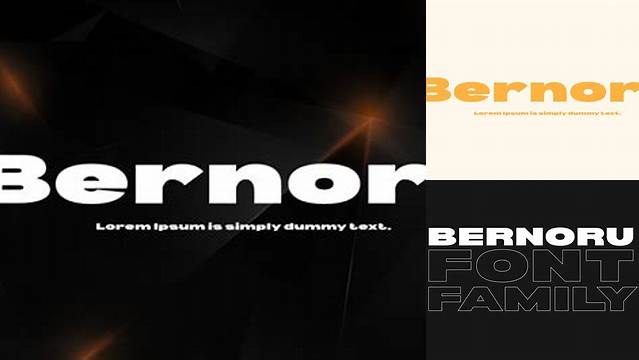
Hey guys! Are you on the hunt for a cool, modern font that'll make your designs pop? Well, look no further! You're in the right place. Today, we're diving headfirst into the awesomeness that is the Bernoru Semi Condensed Font, and the best part? You can snag a free download (TTF)! This font is a real gem, perfect for everything from sleek headlines to eye-catching body text. Get ready to elevate your design game – let's get started!
Bernoru Font: A Deep Dive into Its Features and Design
Alright, let's get down to the nitty-gritty. What exactly makes the Bernoru Semi Condensed Font so special? Well, first off, the semi-condensed design is a game-changer. It means the font is slightly narrower than a standard font, allowing you to fit more text into a given space without sacrificing readability. This is super handy for things like website headers, where space is often at a premium, or for creating a clean, modern look in your designs. The font itself has a unique personality. It strikes a perfect balance between being modern and approachable. The clean lines and slightly condensed nature give it a contemporary vibe, while still being easy on the eyes. This makes it incredibly versatile, suitable for a wide range of projects, from branding and logo design to website layouts, posters, and even social media graphics. It's not just about aesthetics, though. The Bernoru Semi Condensed Font is designed with practicality in mind. The letters are crafted to be clear and distinct, ensuring that your message comes across loud and clear, no matter the size. The font's versatility extends to its usage. You can use it for headlines, subheadings, or even body text. This makes it a well-rounded choice for any design project where you need a cohesive look. The design of the font allows it to adapt to various design styles. Whether you're going for a minimalist look, a more playful vibe, or something in between, this font can accommodate it. The semi-condensed nature means you get more impact for the space you use, and the design of the font is modern and stylish, which will give your designs a sleek and professional appearance. The beauty of the font also lies in its simplicity. It does not have too many frills, which keeps it clean and easy to use. But it still gives you a lot of style, making it suitable for a wide array of applications, from simple website designs to bold branding campaigns. This font is also easily readable in any size, which gives you a lot of flexibility in your designs. Whether you need a font for a small text or a large header, the font will still look clean and stylish. It is the kind of font that can be used in any field of design. It’s just that awesome! So, with all these features, this font is an excellent choice. It is an excellent tool for any designer.
Exploring the Aesthetic Appeal of Bernoru Font
The aesthetic appeal of the Bernoru Semi Condensed Font is truly remarkable. It effortlessly combines a modern sensibility with a touch of elegance, making it a versatile choice for various design projects. The semi-condensed design contributes to its sleek and contemporary appearance, allowing it to fit seamlessly into modern designs. The clean lines and balanced proportions of the font create a visual harmony that is both pleasing and engaging. This font exudes sophistication. It is a versatile font that can be used in multiple design projects, from branding to web design, and also allows you to express a sense of style and professionalism. The design of the font is also very user-friendly, with each letter crafted to maintain excellent readability, which is very important in any font. This feature is important in designs where the text is meant to be easily accessible. The font is also adaptable and can complement various visual styles. Its adaptability makes it a valuable asset for any designer looking to achieve a cohesive and visually striking aesthetic. The design allows designers to experiment with different styles and create visuals that capture the essence of the brand or project. It's not just about the font's inherent beauty; it's about how it can be used to convey a specific mood, tone, or message. Whether you're aiming for a minimalist, clean aesthetic or a more bold and expressive look, the Bernoru Semi Condensed Font can adapt to your vision. The balance between its modern design and easy readability makes it a popular choice for a wide array of projects, allowing you to create captivating designs. This is why it stands out in the crowded field of fonts.